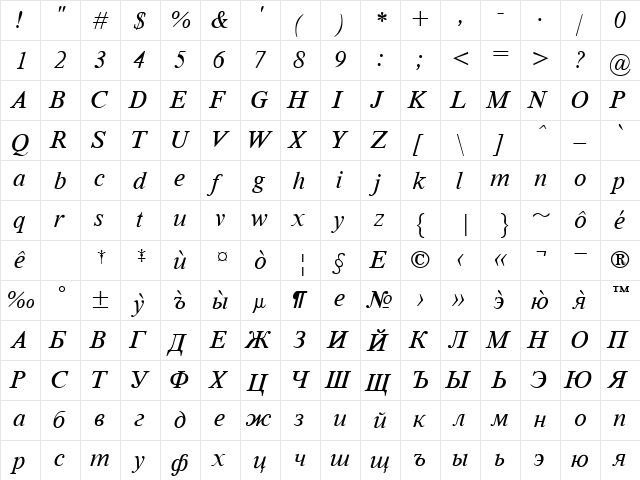
TmsEBD Italic Font Preview
TmsEBD Italic
TmsEBD Italic Font Details
Design Context for TmsEBD Typeface
TmsEBD takes a measured approach to typography — its balanced proportions and neutral character make it a reliable workhorse for both digital and print work. The slanted form adds forward momentum and visual energy.